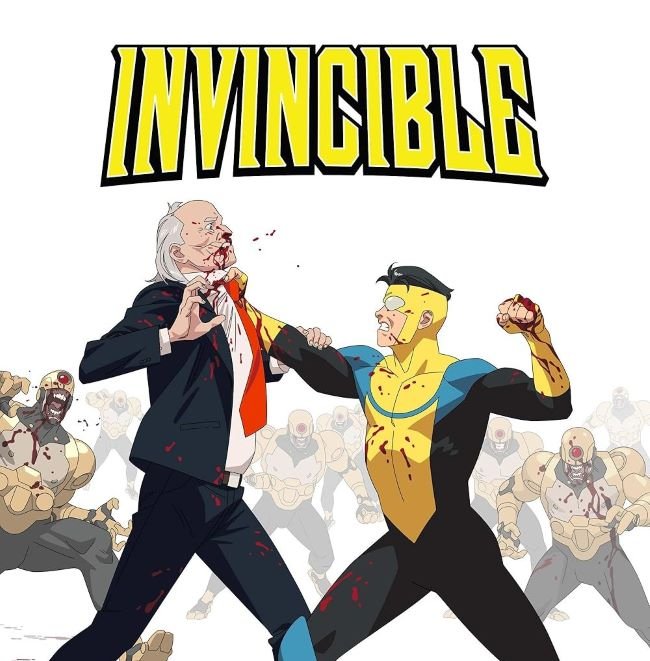
Invincible font — a bold comic book display font with sharp edges and strong geometric presence — is the typography of Robert Kirkman’s Amazon Prime Video animated series (2021–present) following teenager Mark Grayson as he discovers his superpowers and confronts shattering truths about his father, Omni-Man.
Its heavy, impact-driven letterforms carry the show’s core tension between the visual grammar of classic superhero comics and a narrative that systematically deconstructs what it means to be invincible when the people who are supposed to protect the world are themselves deeply compromised.